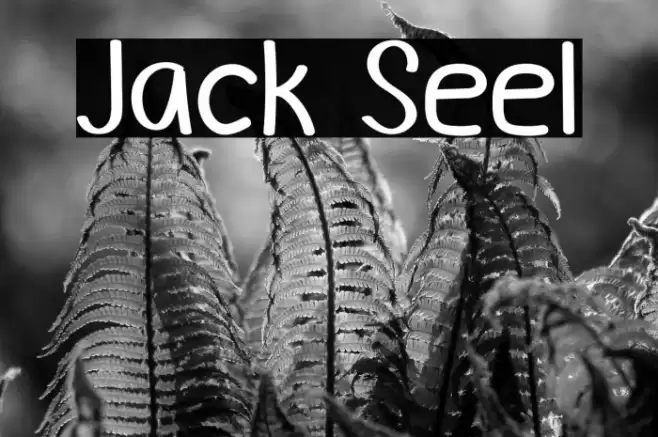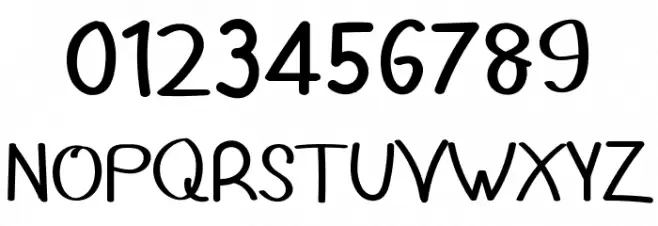
Jack Seel Font
Jack Seel Description
This playful and whimsical font features a handwritten style with a casual and friendly appearance. The letters are rounded with a slight tilt, giving them a dynamic and lively feel. The uppercase and lowercase characters maintain a consistent style, with some letters like 'g' and 'j' having unique loops that add to the font's charm. The numbers are equally playful, matching the overall aesthetic. This font is perfect for projects that require a touch of fun and personality, such as children's books, greeting cards, or playful branding.
A playful, handwritten font with rounded, dynamic characters from Regular fonts.
- Proposed Projects: Ideal for children's books, greeting cards, playful branding, and casual invitations.
- Overall Style: Playful
- Use Case: Headlines, Logos, Casual Text